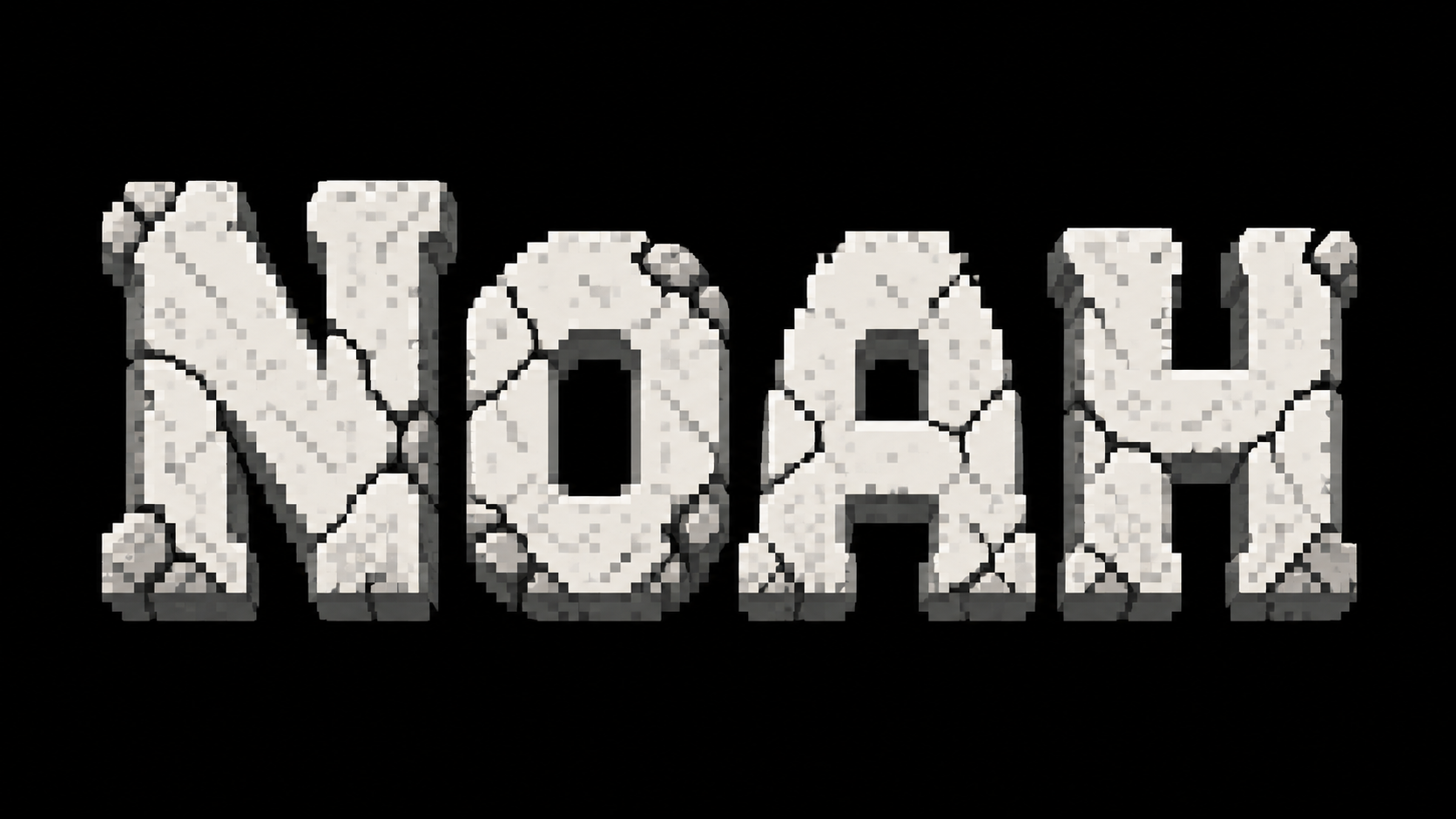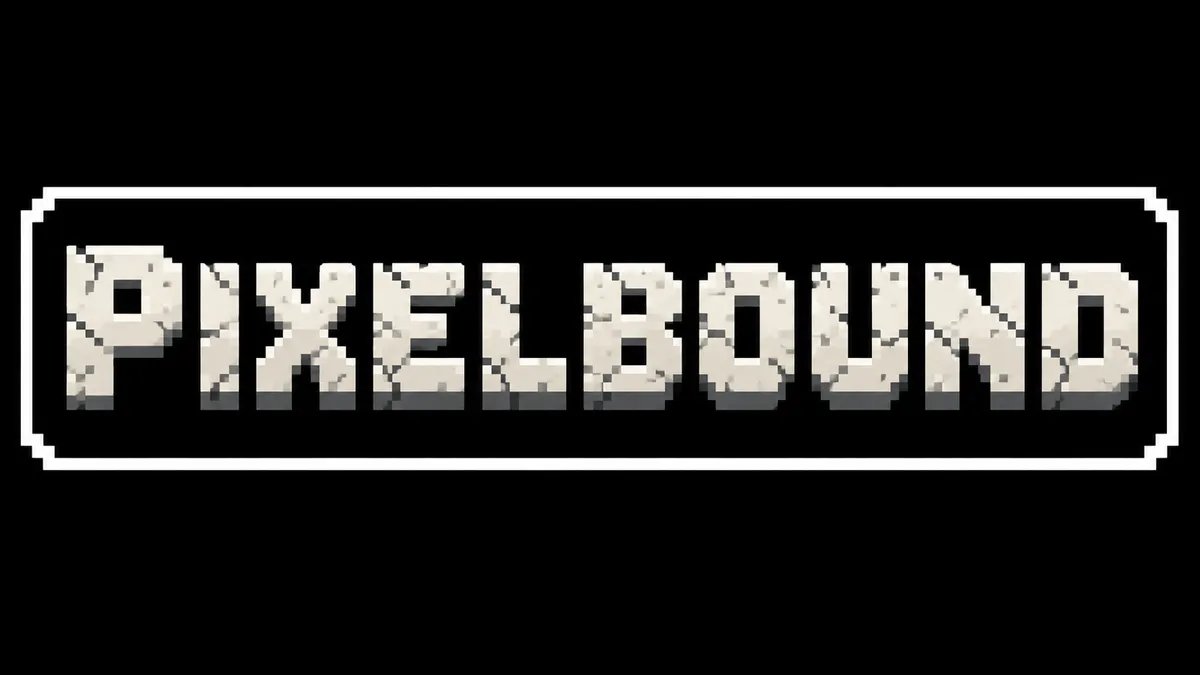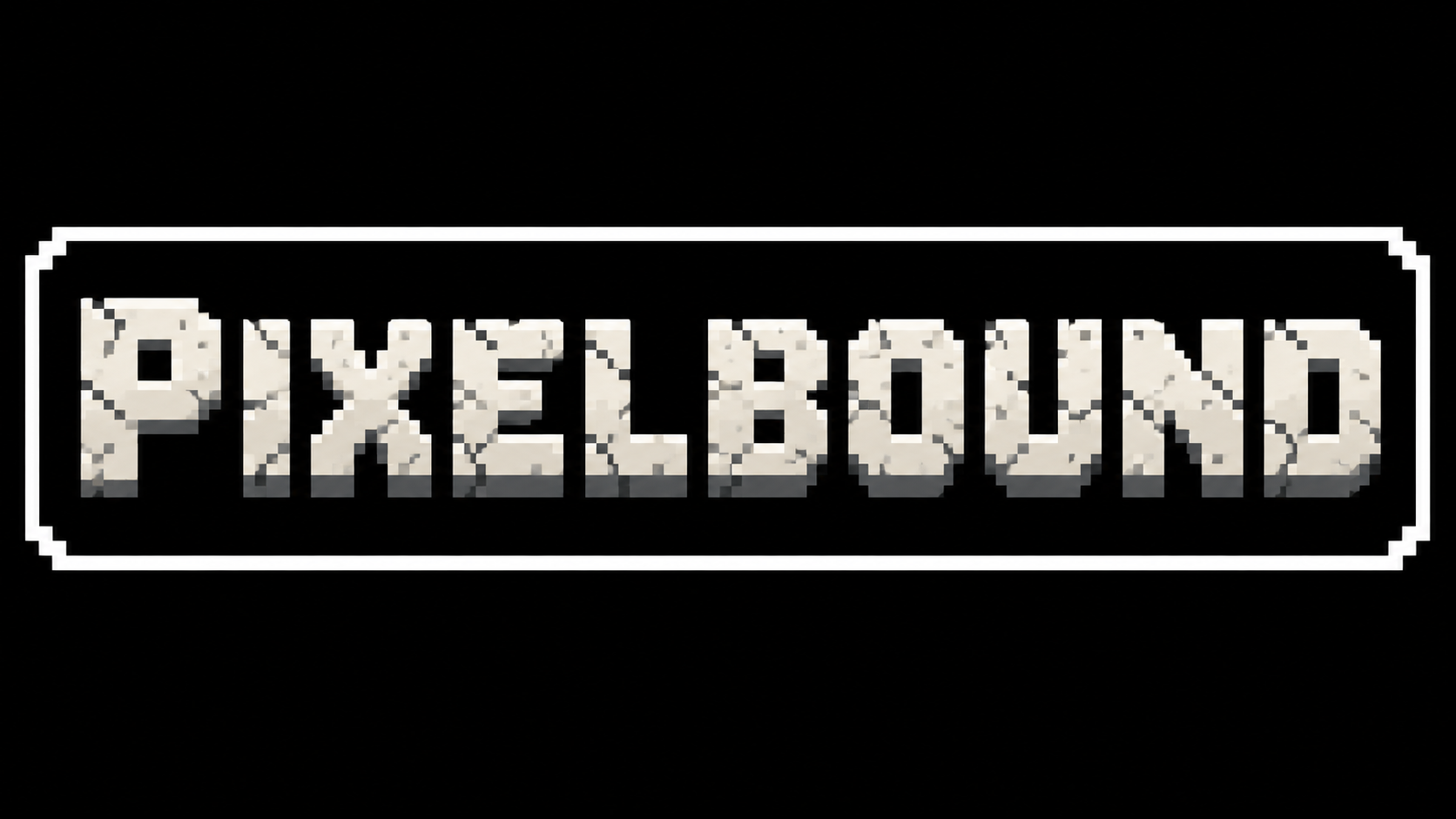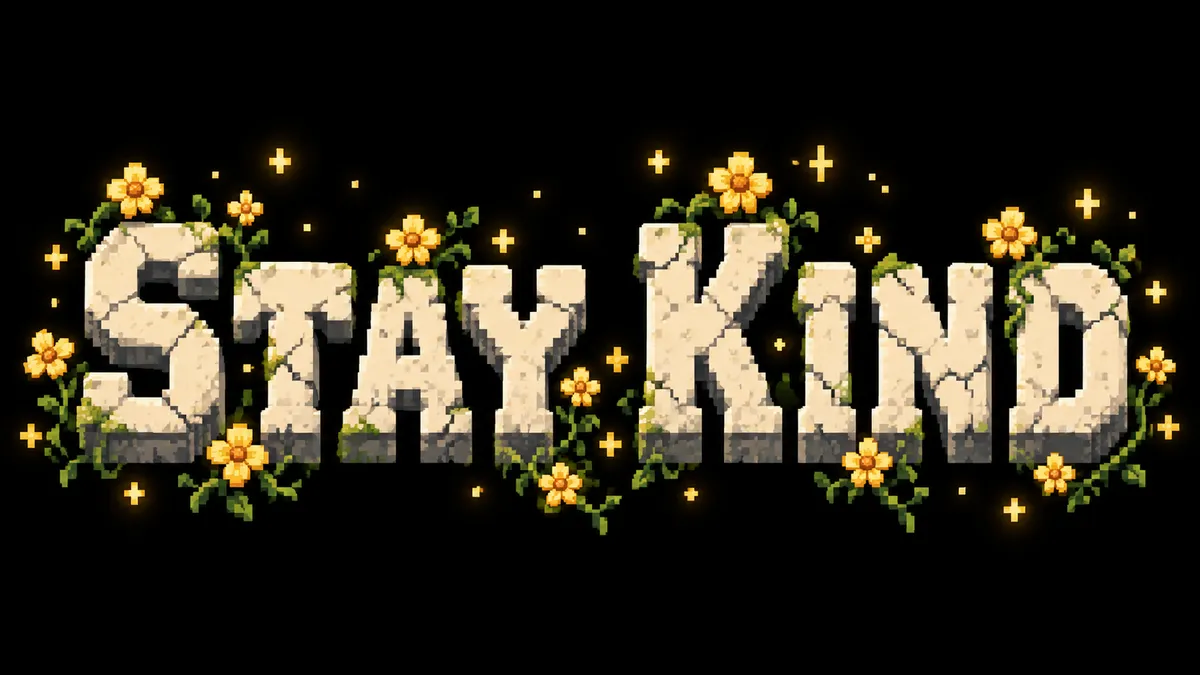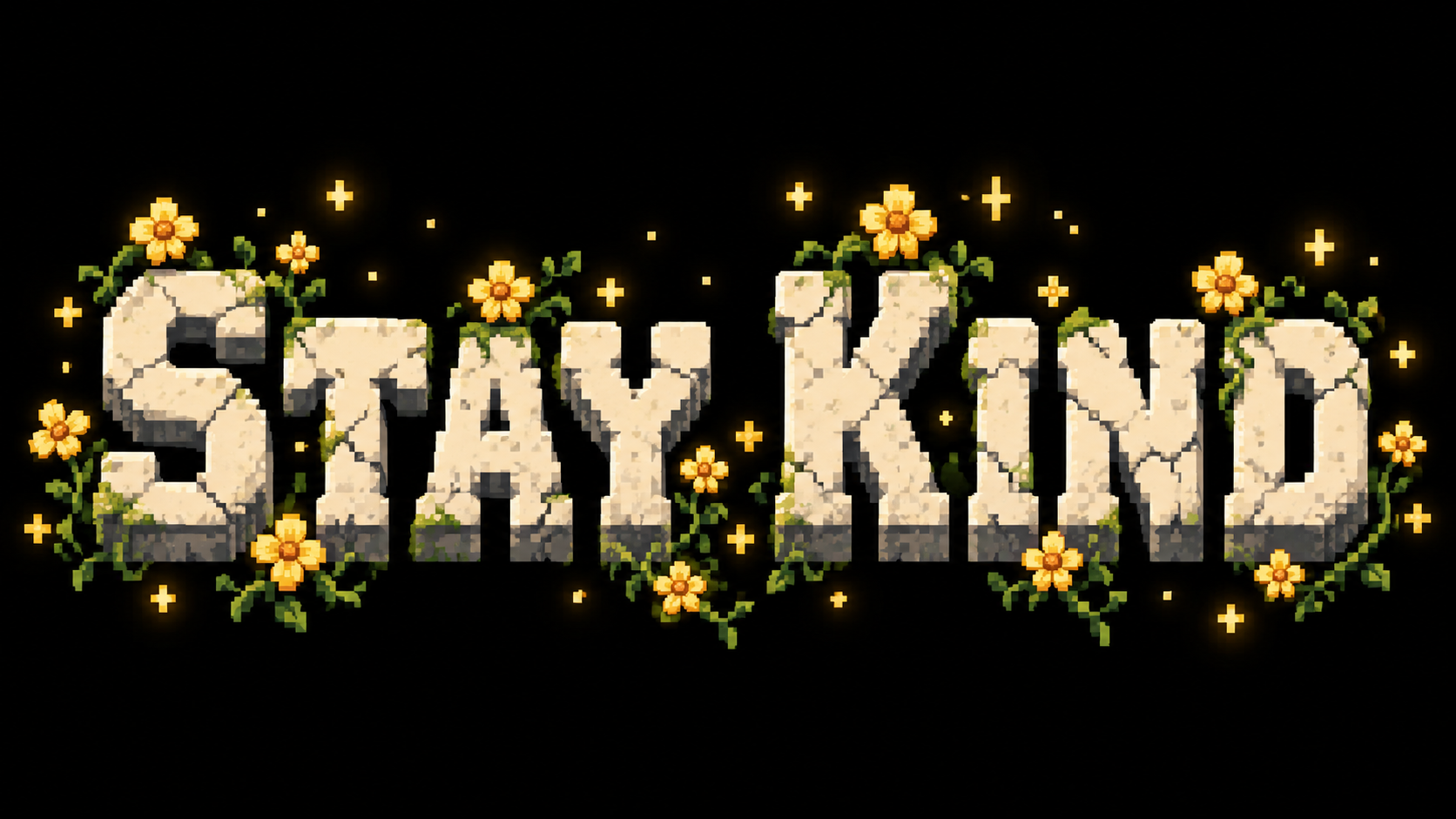
Undertale Font Generator
Chunky, cracked pixel capitals and retro dialogue text, inspired by the indie classic. Fan-made, not affiliated.
The Undertale font people search for is really two looks: the chunky, cracked pixel capitals of the title screen, which look like weathered stone rendered in 8-bit, and the small monospaced pixel type that appears in the game's dialogue. Fontique does not provide either typeface or reproduce the logo. Our AI renders your own words in an original retro pixel style inspired by that visual language.
Cracked Title gives you thick white pixel letters with fractures and worn edges. Dialogue Box places your line in a black bordered panel with white pixel text. Golden Flowers surrounds the type with pixel blossoms, Blue Frost adds a cold glow with drifting pixel snow, and Glitch Red tears the letters with crimson displacement.
No. Fontique does not host the game typefaces or copy its logo. This is a fan-made generator that renders your text in an original cracked-pixel style inspired by that title screen. You get a unique HD image, not a downloadable font file.
Yes. Pick the Dialogue Box preset and type your sentence. It is rendered as white pixel lettering inside a bordered black panel. One or two short lines work best so the type stays large and readable at thumbnail size.
The title is custom pixel lettering. Dialogue in the game is a small monospaced pixel face; Determination Sans/Mono are unofficial fan fonts, not from us. Generate a PNG here for a title or a fake dialogue box. Free credits on sign-up, then 100 credits per Standard render.